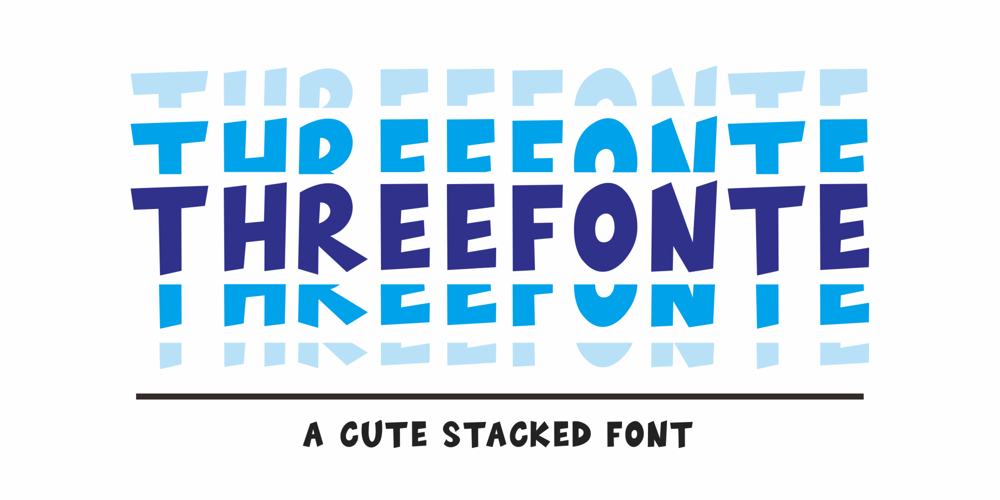
Threefonte Font Family was designed by Su Wondo and published by Girinesia. Threefonte contains 1 styles and family package options. Hello guys…We proud presenting our new font.It’s name THREEFONTE.THREEFONTE is cute and unique stacked font. THREEFONTE would perfect for kids poster, t shirt, flyer, cover children book, cartoon, comic , cristmast invitation, greting card, valentine card, new year party and etc.